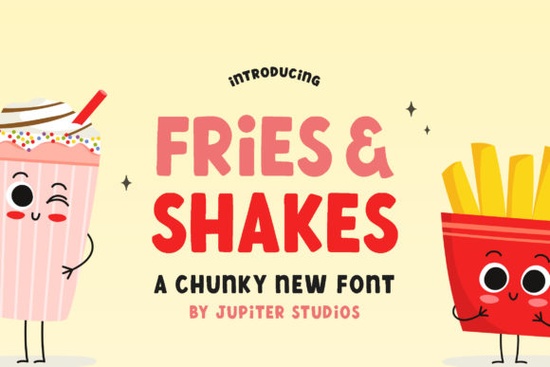
If you’ve been scrolling through Creative Fabrica looking for a font that feels like a weekend drive-thru with friends, you might want to pause at Fries and Shake Font. It’s got that bold, thick lettering that doesn’t take itself too seriously perfect when your project needs to feel laid-back but still stand out. Whether you’re designing merch for a food truck, making stickers for summer camp, or just whipping up a fun birthday invite, this font brings the casual energy without losing readability.
What kind of projects work best with Fries and Shake?
This isn’t the kind of font you’d use for a corporate annual report. But if you’re working on something playful think t-shirts, tote bags, posters for a backyard BBQ, or social media graphics for a local ice cream shop it fits right in. The letters have enough weight to pop on dark backgrounds or small prints, and the informal curves give it personality without being messy.
- T-shirt and hoodie designs (especially for food-themed brands)
- Kids’ party invites or classroom decor
- Menu boards or chalkboard signs for cafes
- Print-on-demand mugs, stickers, or phone cases
- Social media quote cards with a chill, friendly tone
How does it compare to other display fonts on Creative Fabrica?
One bakery owner used it for their “Weekend Donut Special” window decal. A craft fair vendor put it on reusable snack bags. Someone even made a set of printable chore charts for kids using this font because apparently “Clean Your Room” looks less scary in thick, friendly letters.
Any tips for pairing it with other typefaces?
Keep it simple. Since Fries and Shake already has strong visual weight, pair it with something neutral and clean. A basic sans-serif like Helvetica Neue, Montserrat, or even Arial works fine for body text. If you’re going for retro diner energy, throw in a script like Lobster or Playlist Script for accents but only sparingly. Too many competing styles will muddy the message.
Color-wise? Try mustard yellow, ketchup red, or milkshake pastels. Dark backgrounds with white or cream lettering also look great the thickness holds up well even at smaller sizes.